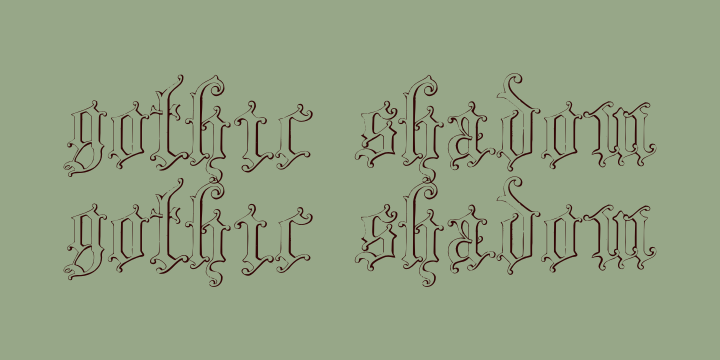
gothic shadow
Designed by Paulo W, Gothic Shadow is a blackletter and historical font family published by Intellecta Design.
A naive blackletter vinatge font. Lower cases only